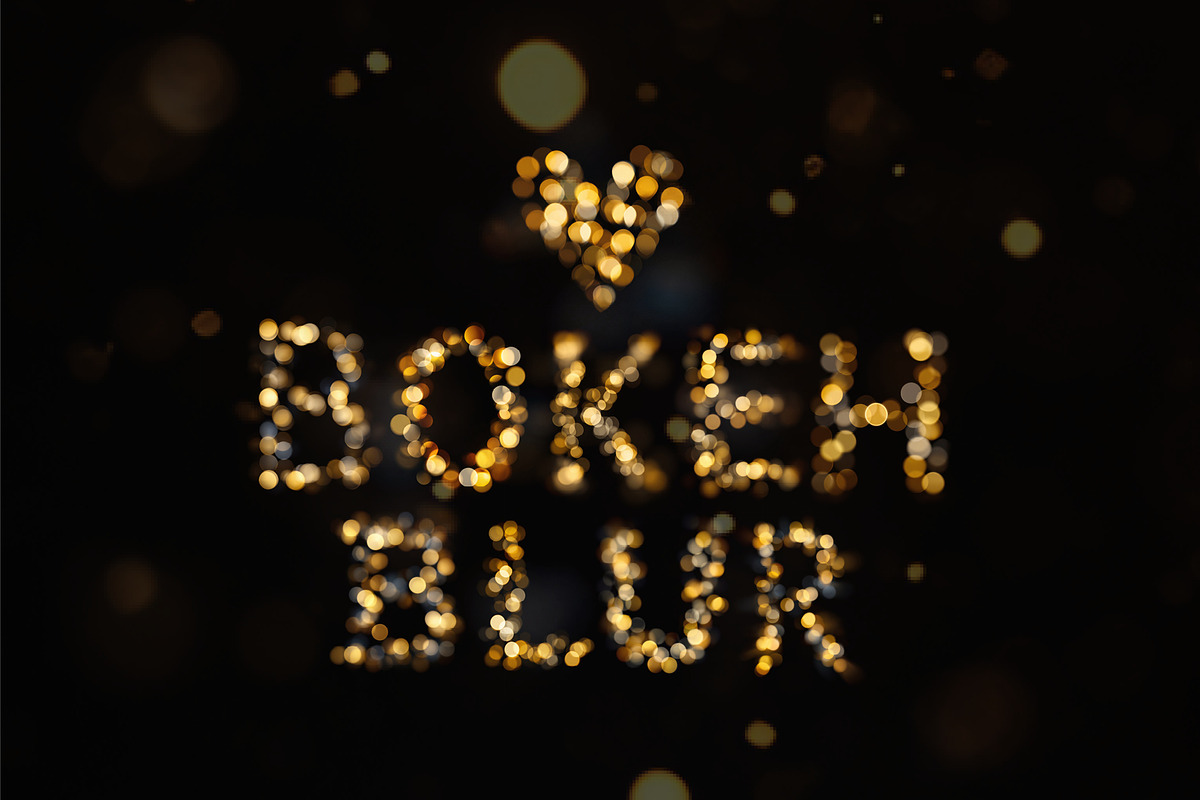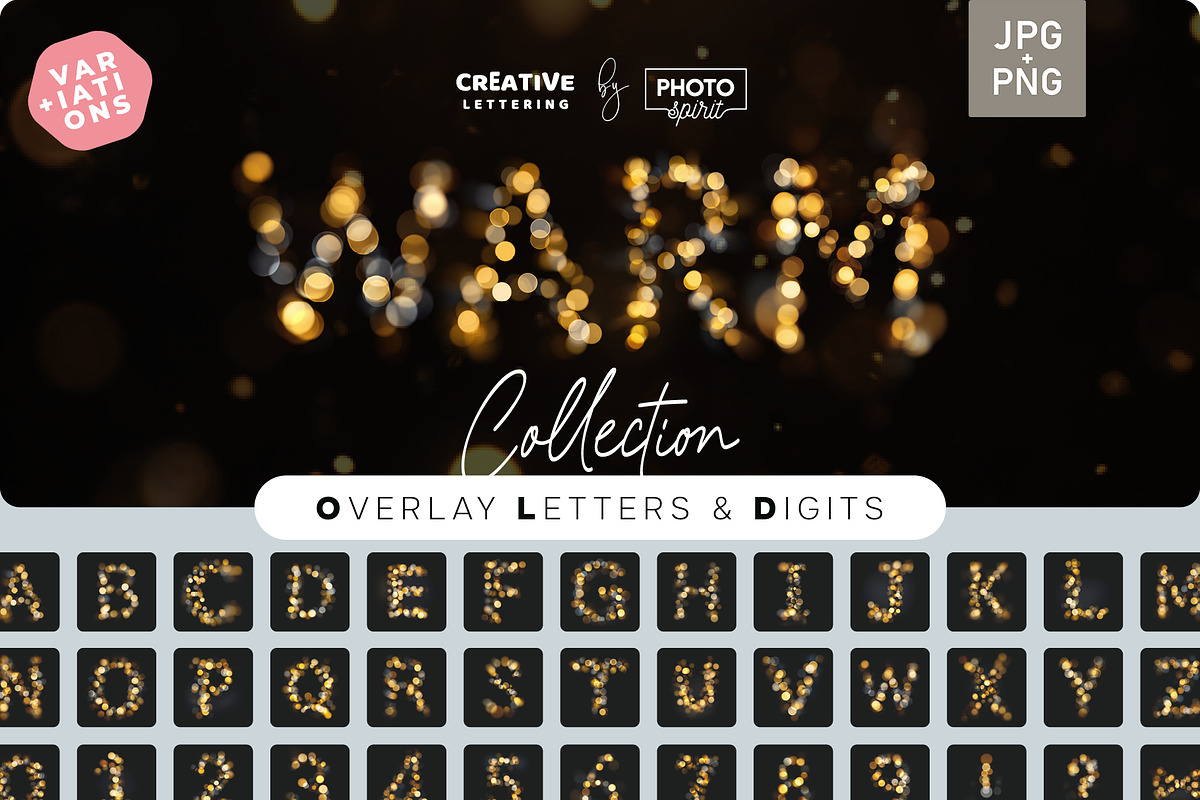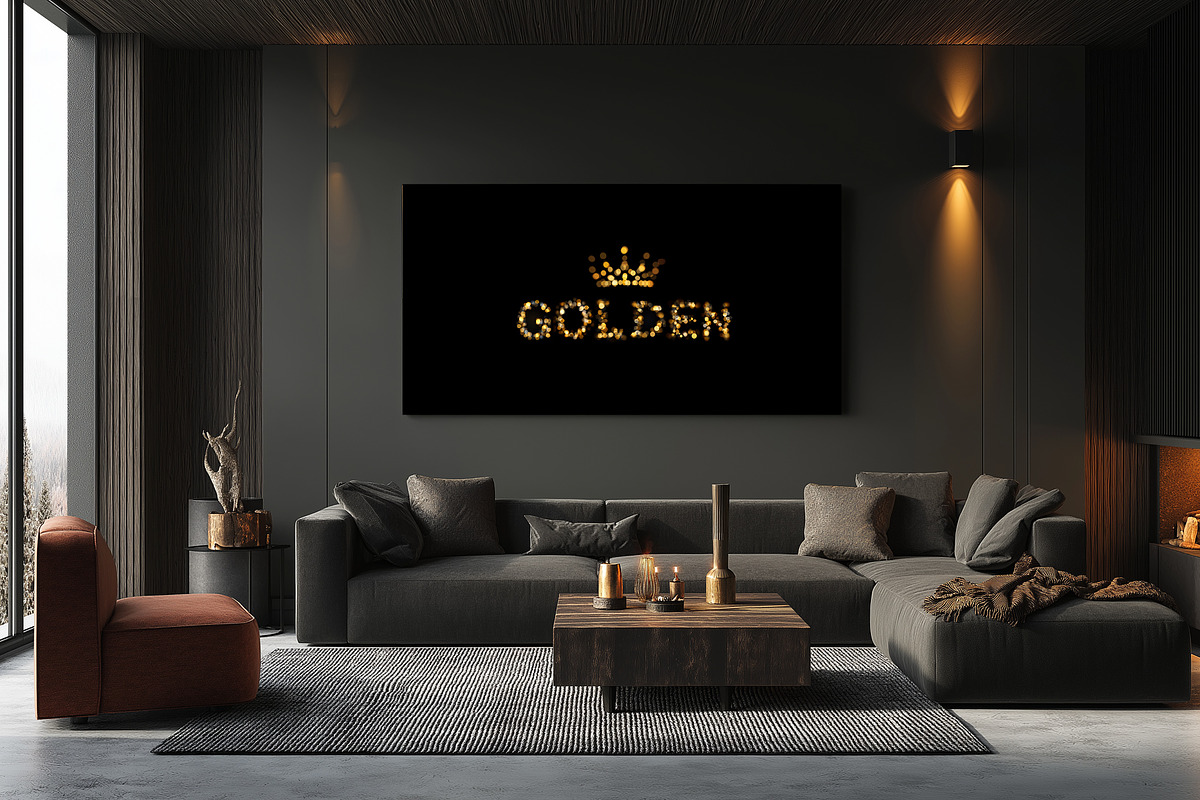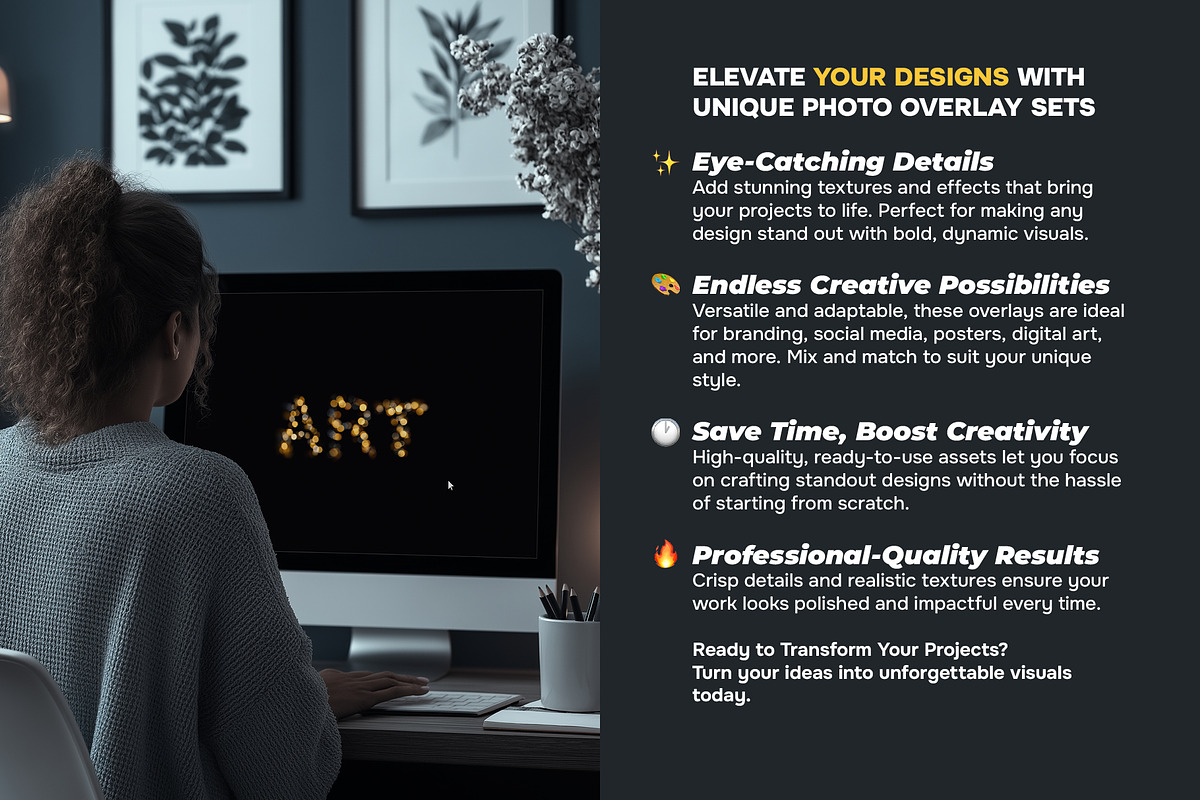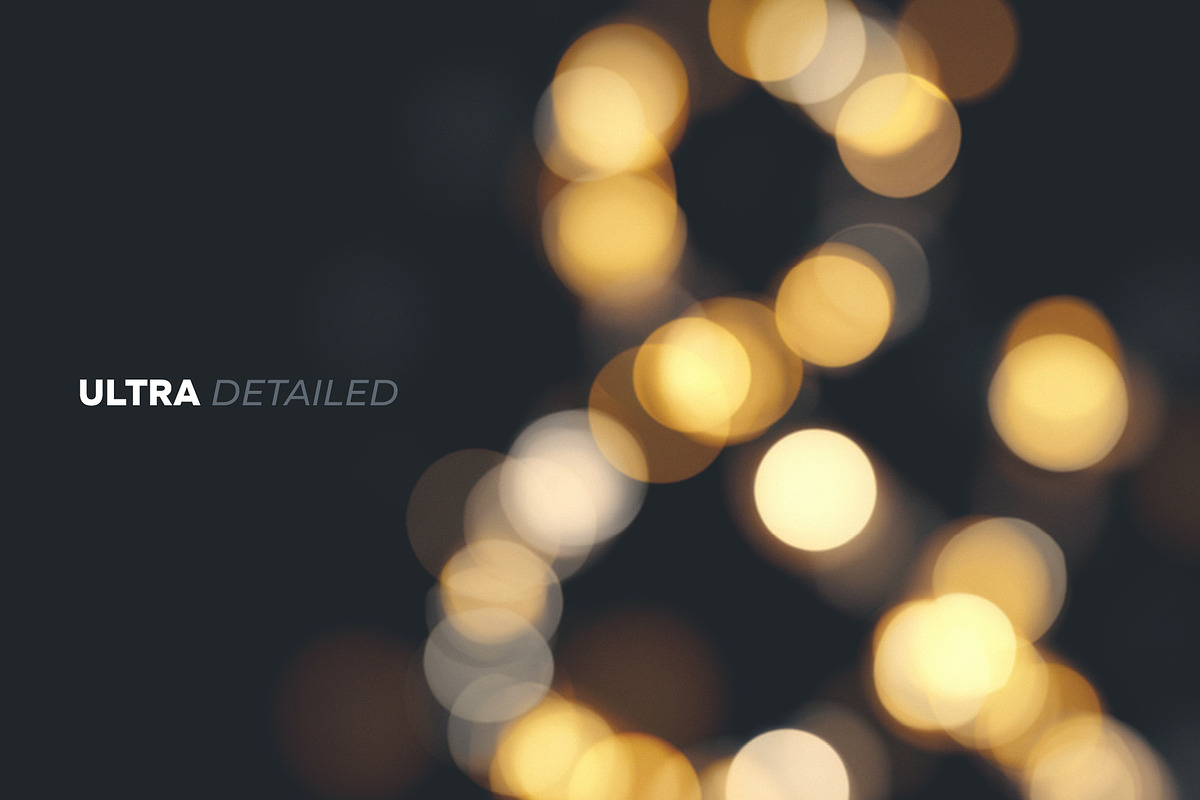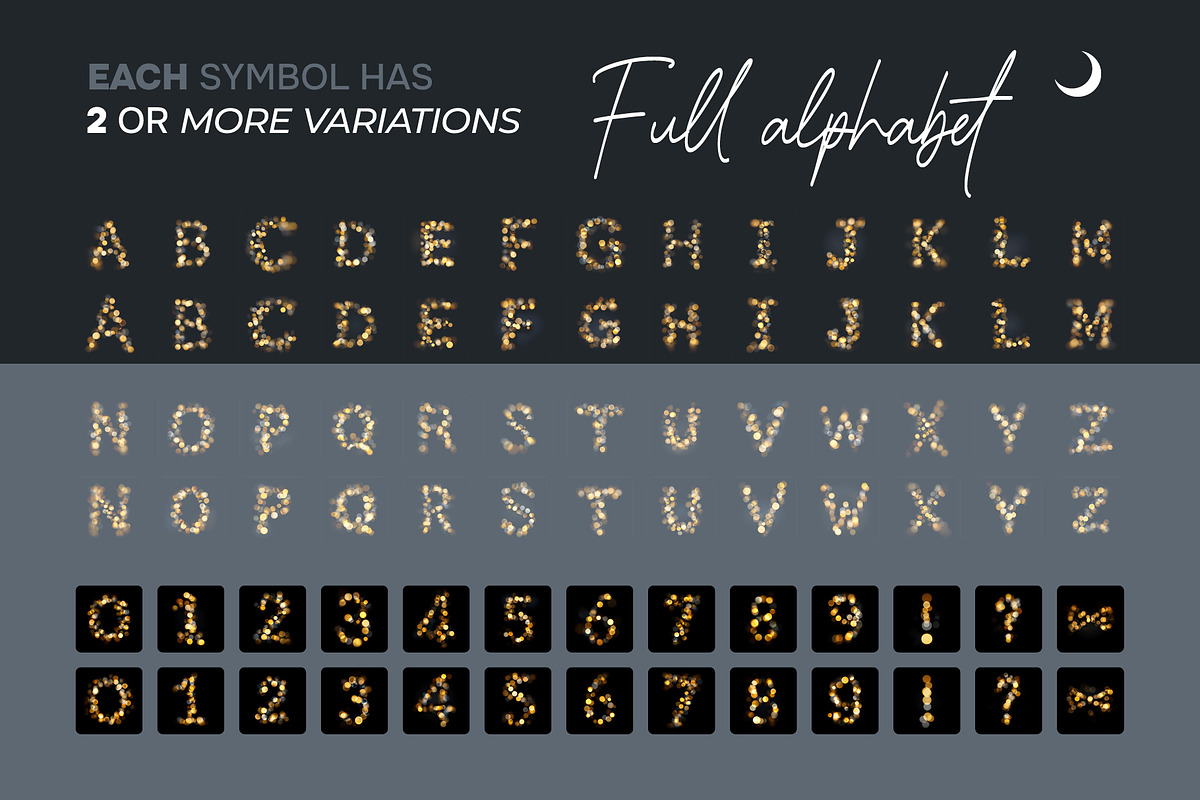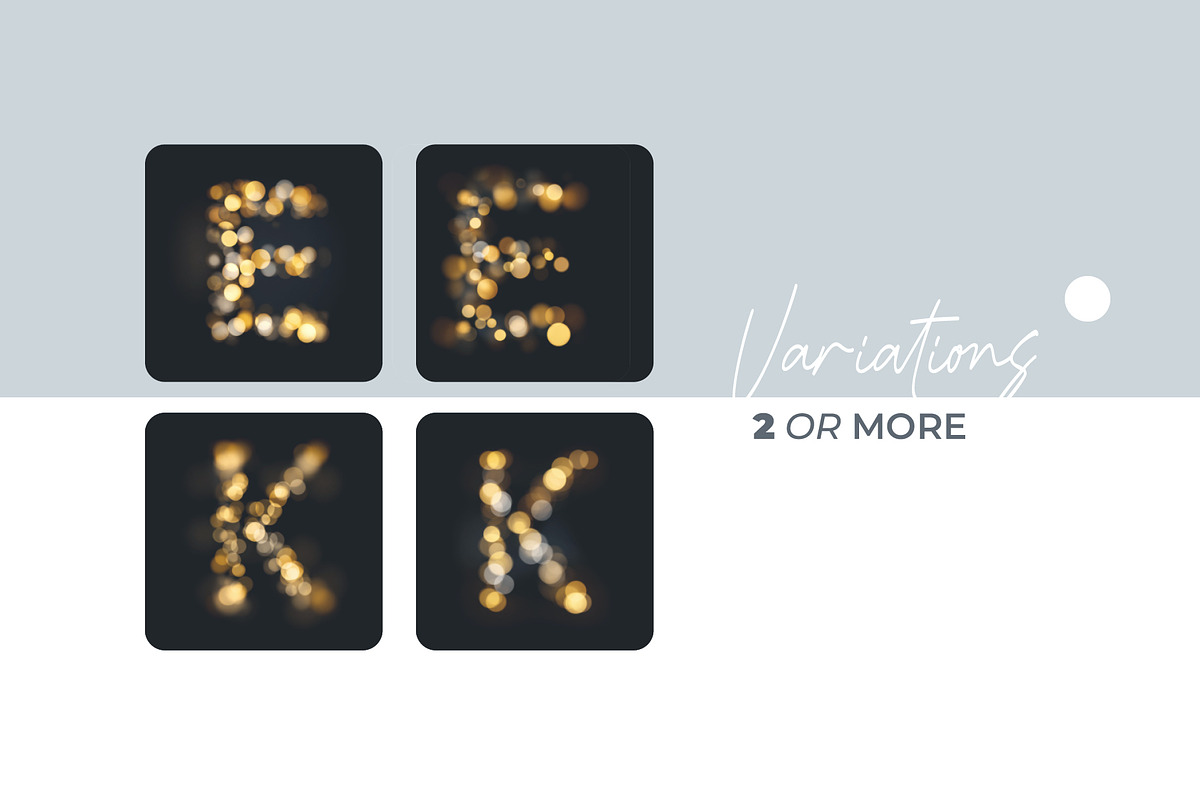
Golden Warm Bokeh Letters Overlays
Elevate your design work with the Golden Warm Bokeh Letters Overlays Collection — a refined set of alphabet overlays inspired by the soft radiance of golden bokeh lights. Each letter is thoughtfully designed to reflect the dreamy, glowing charm of blurred golden tones, adding a luxurious and sophisticated touch to any creative project.
Whether you're crafting brand visuals, social media content, event invitations, or personal artwork, this collection will bring a warm and elegant aesthetic to your projects. Easy to use and compatible with most design software, these overlays offer seamless integration and professional-quality results. ✨ Features:
Full Alphabet + Symbols Includes uppercase letters, numbers, and essential punctuation to meet a variety of design needs.
Multiple Bokeh Styles Per Letter Each letter comes in 2–5 glowing golden light variations, giving you plenty of creative options.
Realistic Golden Bokeh Effects Designed to emulate the soft, luminous beauty of golden bokeh for an eye-catching finish.